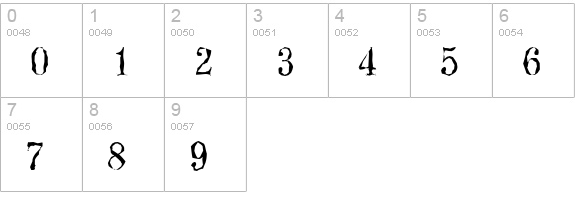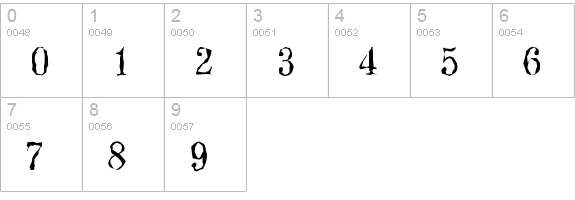
ValenciaRandom-Regular is the standard, neutral variant in the ValenciaRandom typeface family \xE2\x80\x94 well suited to general body text, paragraphs, and standard typographic work.
ValenciaRandom-Regular font is a whimsical and playful typeface that adds a touch of charm to any design project. Its irregular and hand-drawn style gives off a unique and artistic feel, perfect for creating eye-catching headings, posters, and branding materials. The free-flowing strokes and varying letter sizes create a dynamic and energetic look that captures attention. This font is freely available to download at FontsMarket.com, making it easily accessible for designers and creatives looking to add a creative flair to their work. Whether you're working on a personal project or a client's design, ValenciaRandom-Regular font is a versatile and fun choice that will bring a sense of character and personality to your designs.